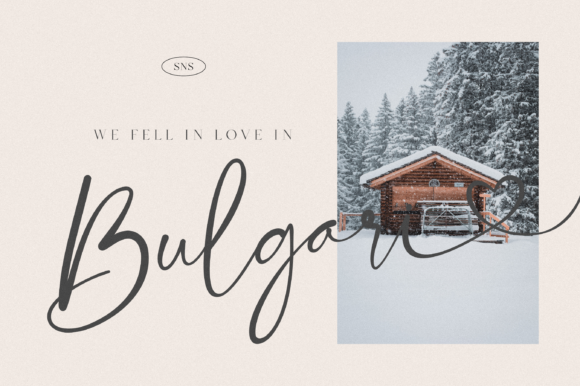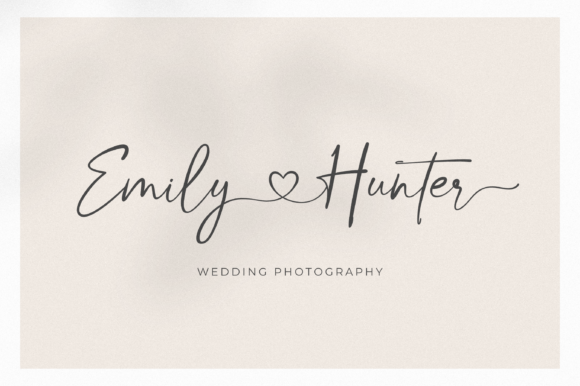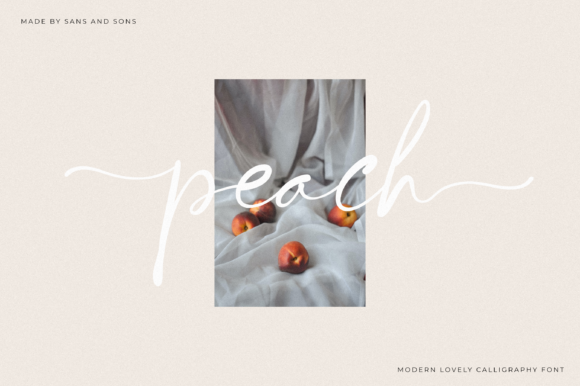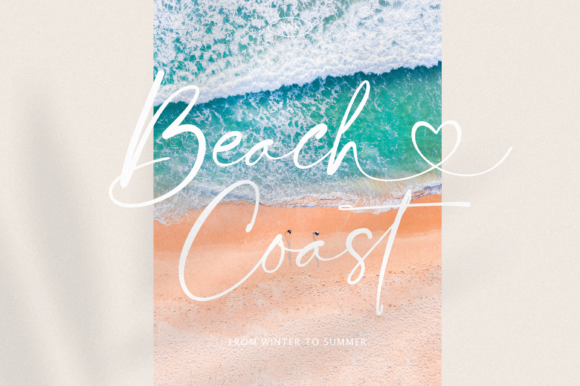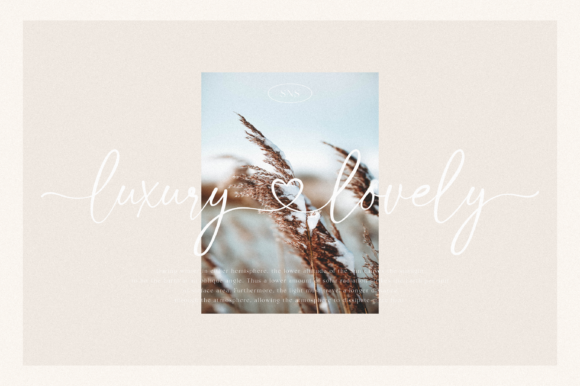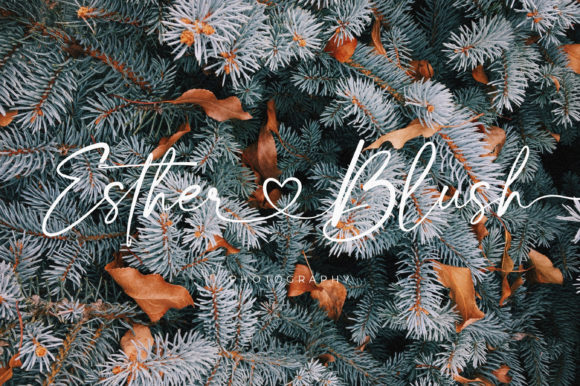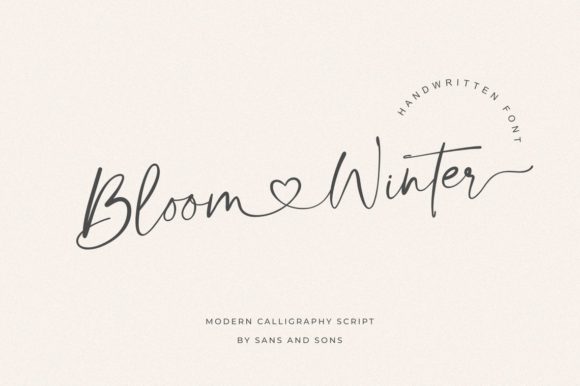
Bloom Winter Font: Elevate Your Designs with Delicate Elegance
Are you a designer or crafter looking for a font that exudes elegance and sophistication? Look no further than the Bloom Winter Font. This beautiful, handwritten font is perfect for adding a touch of refinement to your projects. In this article, we’ll take a closer look at the Bloom Winter Font, its features, and how you can use it to elevate your designs.
A Delicate and Elegant Handwritten Font
The Bloom Winter Font is a delicate and elegant handwritten font that is sure to capture your attention. Its distinct and well-rounded letters make it a masterpiece, perfect for a variety of design projects. Whether you’re creating a logo, branding materials, or craft projects, this font is sure to add a touch of sophistication.
One of the standout features of the Bloom Winter Font is its unique and elegant style. The letters are carefully crafted to create a sense of fluidity and movement, making it perfect for designs that require a touch of whimsy and charm.
The Bloom Winter Font is PUA (Private Use Area) encoded, which means that you can access all of the glyphs and swashes with ease. This encoding allows you to unlock the full potential of the font, giving you access to a wide range of characters and symbols that can be used to enhance your designs.
With PUA encoding, you can easily access the font’s built-in swashes and glyphs using a program like Adobe Illustrator or Photoshop. This makes it easy to add flourishes and other decorative elements to your designs, taking them to the next level.
The Bloom Winter Font is perfect for designers and crafters who are looking for a unique and elegant font to add to their collection. Whether you’re creating digital products or handmade crafts, this font is sure to be a valuable addition to your toolkit.
Designers can use the Bloom Winter Font to create stunning branding materials, such as logos, business cards, and brochures. The font’s elegant style makes it perfect for luxury brands, beauty products, and high-end services.
Crafters can use the Bloom Winter Font to add a personal touch to their handmade projects, such as scrapbooking, card making, and journaling. The font’s whimsical style makes it perfect for creating unique and eye-catching titles, headings, and embellishments.
Tips for Using the Bloom Winter Font
Here are a few tips for using the Bloom Winter Font in your designs:
- Use the font as a headline or title font to add a touch of elegance to your designs.
- Pair the font with a simple sans-serif font for a striking contrast.
- Experiment with the font’s built-in swashes and glyphs to add flourishes and other decorative elements to your designs.
- Use the font to create custom quotes, phrases, and lyrics for your designs.
The Bloom Winter Font is a beautiful and elegant handwritten font that is perfect for designers and crafters who are looking for a unique and sophisticated font to add to their collection. With its PUA encoding and delicate style, this font is sure to elevate your designs and add a touch of refinement to your projects.